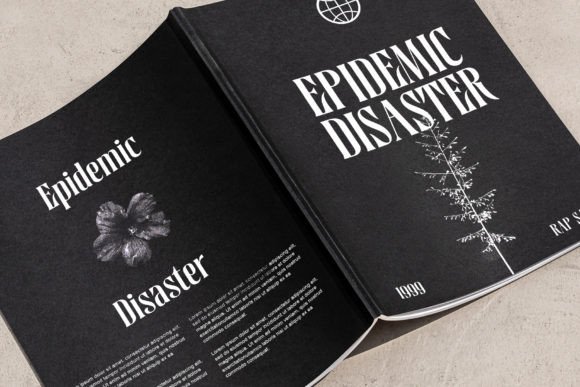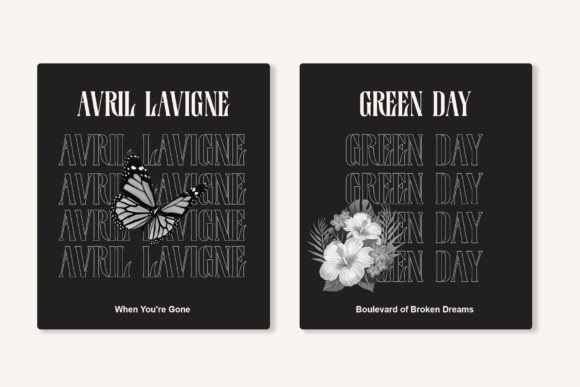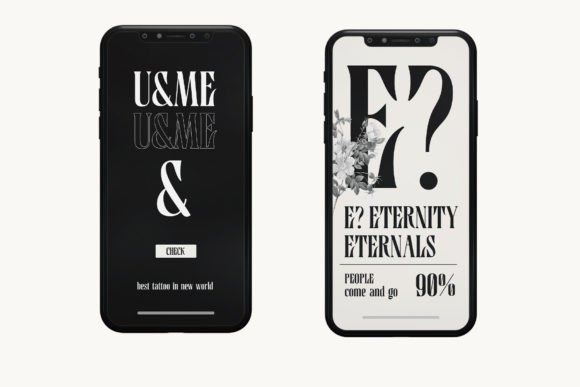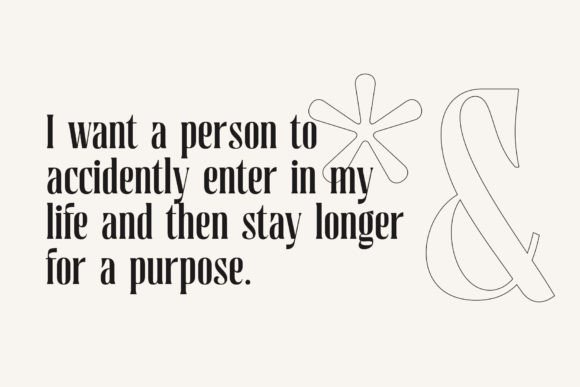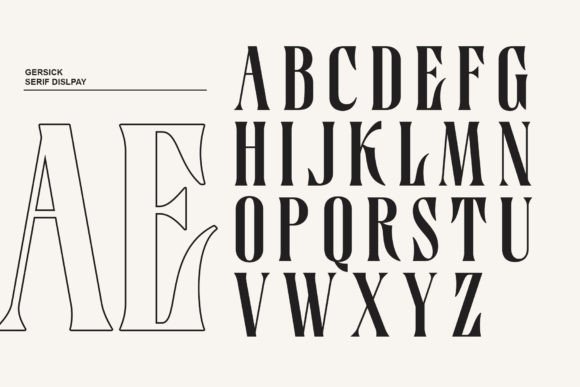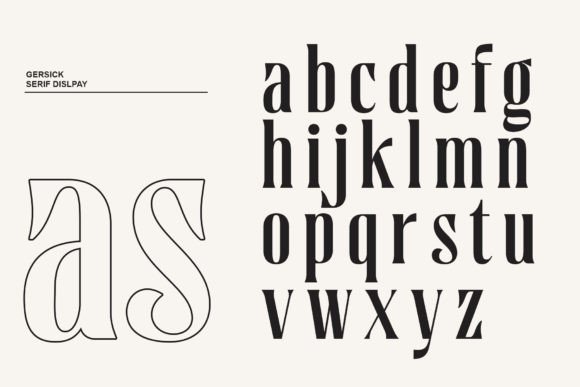
Gersick Font: Elevate Your Designs with Timeless Elegance
In the world of typography, few fonts manage to strike a balance between classic sophistication and modern flair. Gersick Font is one such typeface that effortlessly merges traditional elegance with contemporary refinement, making it an ideal choice for designers and crafters seeking to add a touch of luxury to their projects.
The Essence of Gersick Font
Gersick is a stylish serif font that boasts refined serifs and well-proportioned letterforms. Its design is rooted in the principles of classic typography, yet it incorporates subtle modern twists that make it versatile and highly adaptable. This blend of old and new results in a font that exudes a sense of timeless beauty and grace, perfect for projects that demand a high level of sophistication.
Key Features of Gersick Font
- Refined Serifs: The serifs in Gersick are carefully crafted to add a touch of elegance to any text. They are subtle yet distinctive, providing a clear guide for the eye as it moves through the text.
- Well-Proportioned Letterforms: Each letter in the Gersick font is meticulously designed to ensure optimal readability and aesthetic appeal. The proportions are balanced to create a harmonious flow of text.
- Classic yet Modern: Gersick strikes a perfect balance between traditional serif fonts and modern design sensibilities. This makes it suitable for a wide range of applications, from editorial and branding to luxury packaging and web design.
- Versatility: The font’s adaptability is one of its standout features. It can be used in various contexts, including print and digital media, without losing its impact or elegance.
Applications of Gersick Font
Gersick’s versatile nature makes it suitable for a myriad of design projects. Here are some of the areas where Gersick truly shines:
- Branding: For brands aiming to convey a sense of luxury, sophistication, and tradition, Gersick is an excellent choice. It can be used in logos, business cards, and other brand materials to create a lasting impression.
- Editorial Work: Gersick’s readability and elegance make it perfect for editorial projects such as magazines, newspapers, and books. It enhances the reading experience while adding a touch of class to the content.
- Luxury Designs: For high-end products, luxury packaging, and premium services, Gersick brings a level of refinement that is hard to match. Its classic appeal ensures that the designs stand out with a timeless charm.
- Web Design: In digital applications, Gersick maintains its poise and elegance. It is suitable for website headers, blogs, and digital advertising, ensuring that the content is not only readable but also visually appealing.
Why Choose Gersick Font?
In a sea of fonts, Gersick stands out for several reasons:
- Timeless Appeal: Gersick’s design ensures that it remains relevant across different trends and design eras. It is a font that won’t look outdated anytime soon.
- Elegance and Sophistication: It brings a level of elegance and sophistication that is hard to find in other fonts. This makes it ideal for projects where a high-end feel is required.
- Readability: Despite its elegance, Gersick does not compromise on readability. It is clear and legible, making it suitable for both headings and body text.
- Versatility: Its adaptability across various design projects and mediums makes Gersick a valuable addition to any designer’s toolkit.
| Author | INKSUN™ |
Gersick Font is a stylish serif typeface that brings a perfect blend of classic elegance and modern sophistication. Its refined serifs, well-proportioned letterforms, and versatile nature make it an excellent choice for a wide range of design projects. Whether you’re working on branding, editorial content, luxury designs, or web projects, Gersick adds a touch of timeless beauty and grace. By choosing Gersick, designers and crafters can elevate their work, ensuring it stands out with a sense of class and sophistication.
Incorporate Gersick Font into your next project and experience the transformative power of elegant typography. With Gersick, you can create designs that are not only visually stunning but also enduringly stylish.